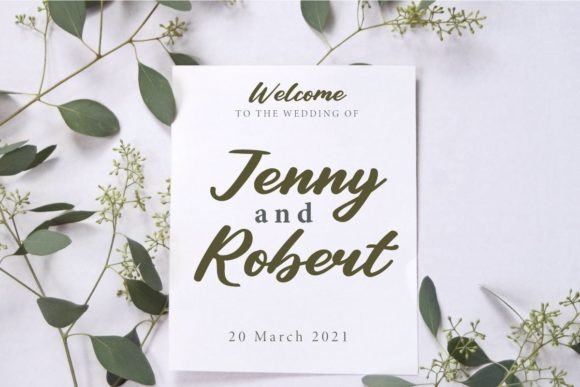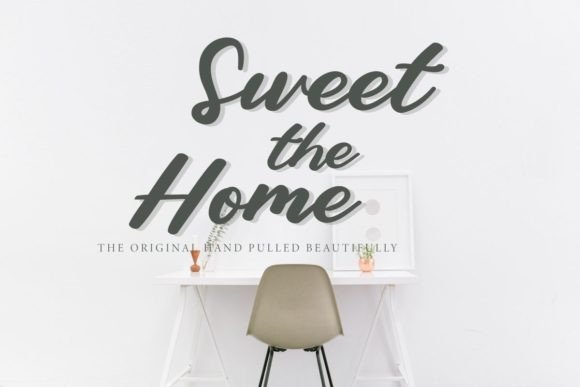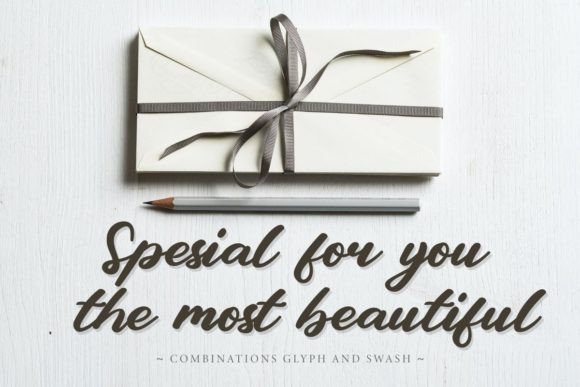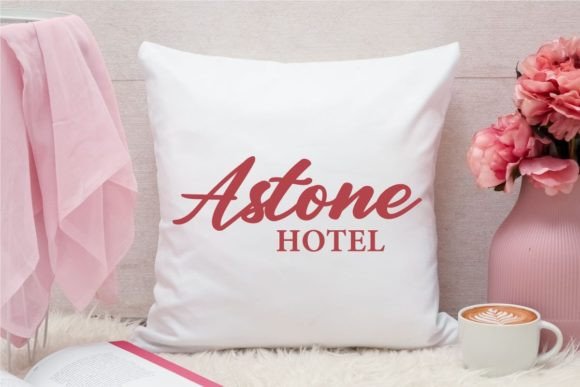
About Keegan Font
Keegan is a beautiful handwritten font that radiates elegance and charm. This versatile typeface is well-suited for a variety of design applications, making it an excellent choice for wall displays, wedding invitations, social media posts, logos, advertisements, product packaging, product designs, labels, photography, watermarks, invitations, stationery, and any project that demands impressive typography.
The beauty of Keegan lies in its handwritten style, which adds a personal and authentic touch to your designs. Whether you’re creating a visually striking wall display, crafting elegant wedding invitations, or designing eye-catching social media posts, Keegan enhances the overall aesthetic with its graceful and stylish letterforms.
Its versatility shines through in its suitability for diverse applications, from product packaging and labels to photography watermarks and stationery. Keegan’s elegant and flowing design ensures that it elevates the visual appeal of your projects, contributing to a sophisticated and polished look.
As a font that blends beauty with functionality, Keegan is an ideal choice for conveying a sense of refinement in your branding and design efforts. Its usage spans across both digital and physical mediums, providing a cohesive and impressive typographic element that resonates with your audience.
In summary, Keegan is not just a font; it’s a design asset that brings beauty and elegance to a wide array of projects. Whether you’re focusing on wall displays, invitations, social media posts, or packaging, let Keegan be the handwritten font that enhances your typography and adds a touch of sophistication to your creative endeavors.